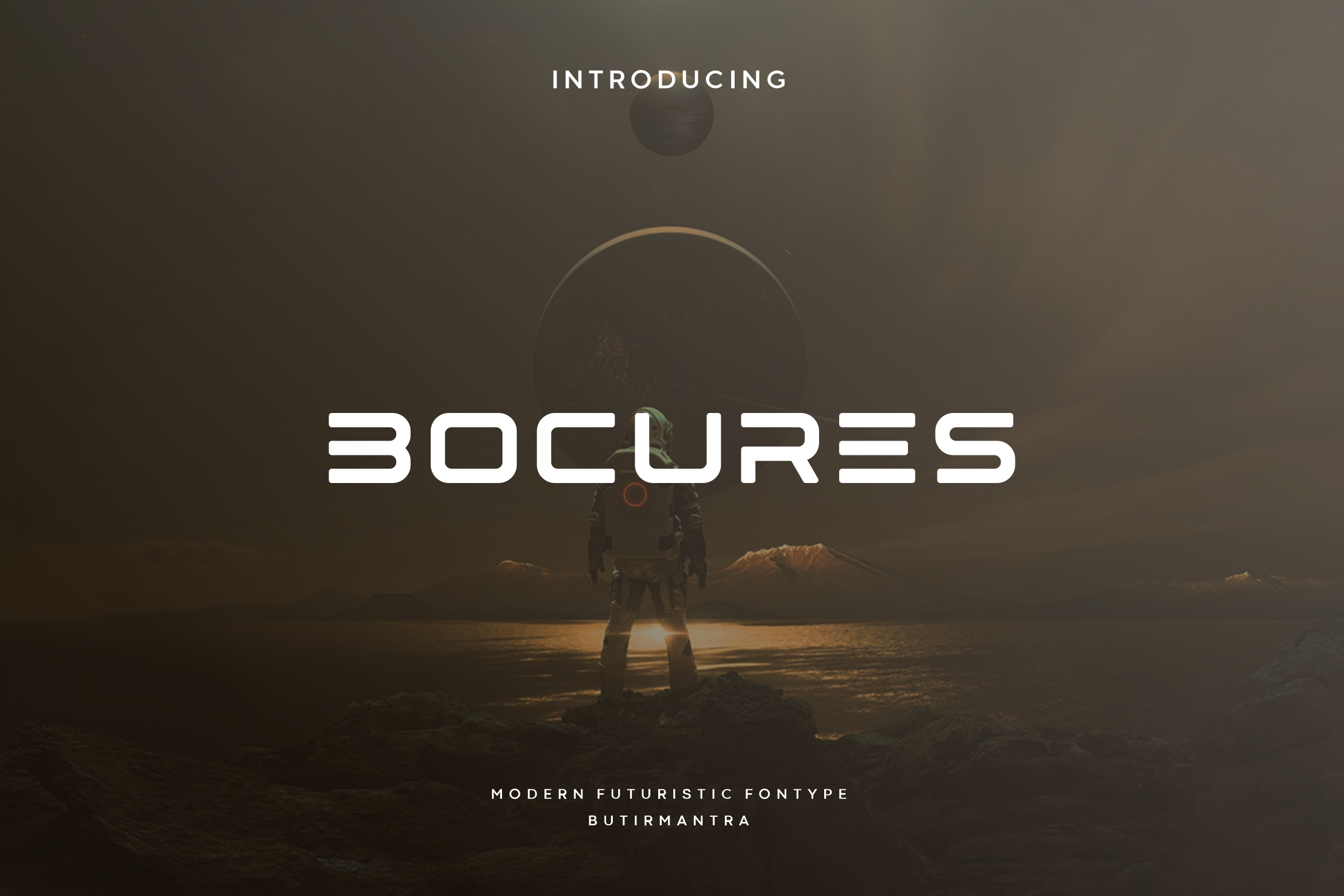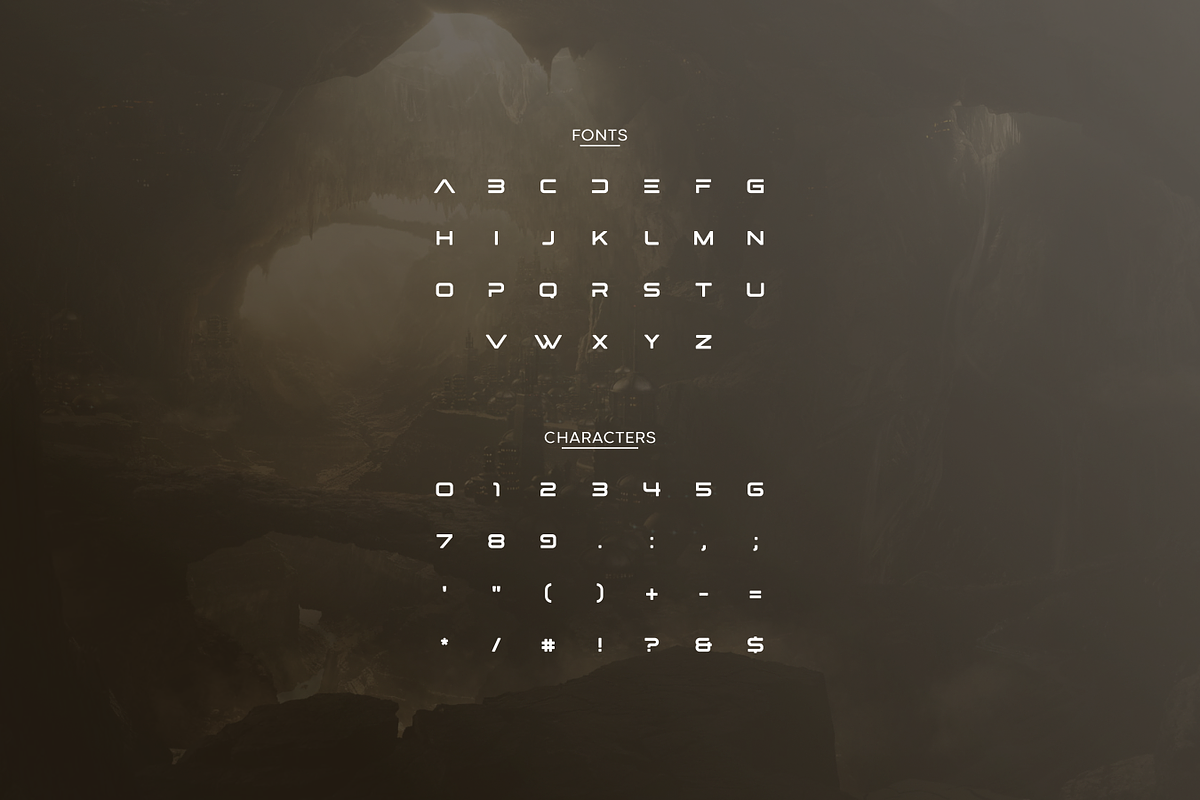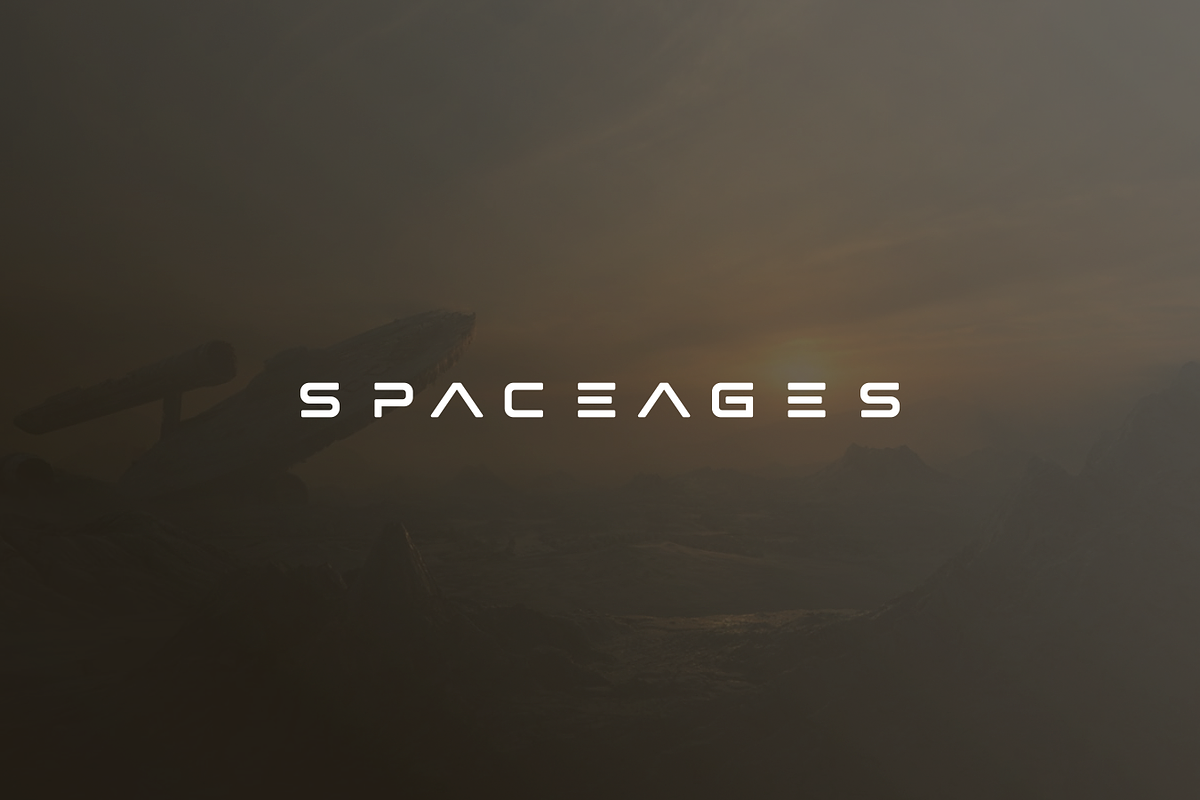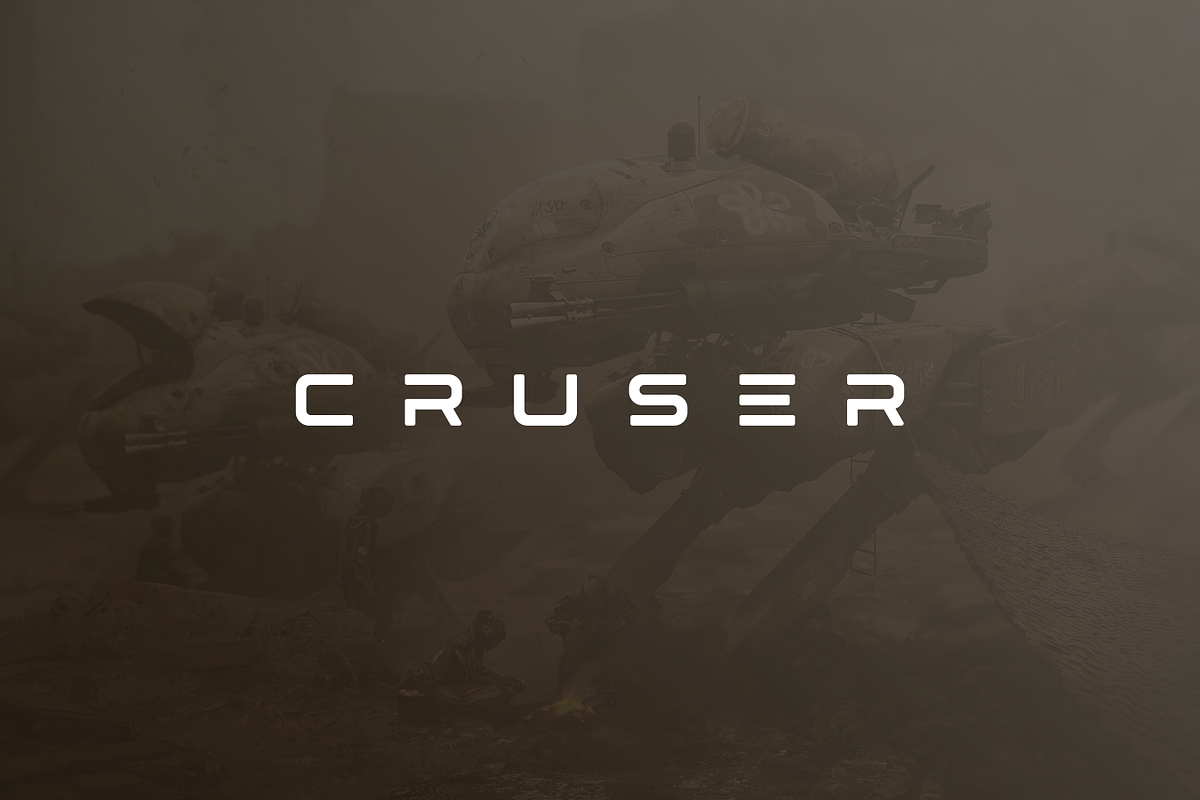
Bocures - Modern Futuristic Typeface
Bocures out the latest fonts that create a futuristic, sophisticated and elegant hi-tech atmosphere and style. Bocures looks great as header, tittle and as text both, use this font in your various projects. This font can use for in fields technology, like robot & android, hi-tech, future, virtual reality, outer space, and many others. Use this font for your futuristic modern looking designs as well as your own unique designs!